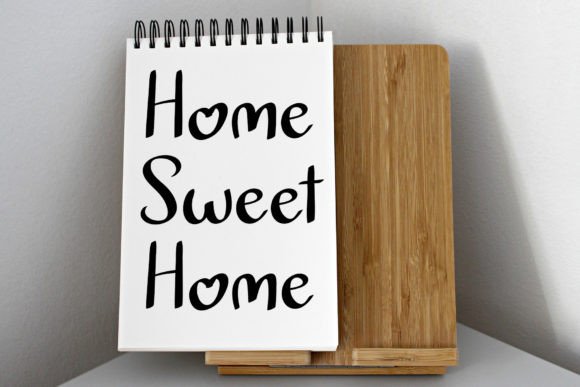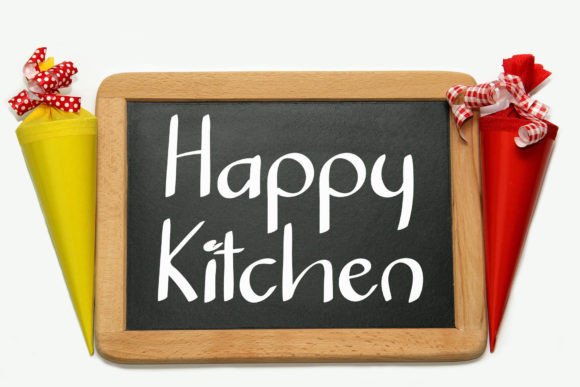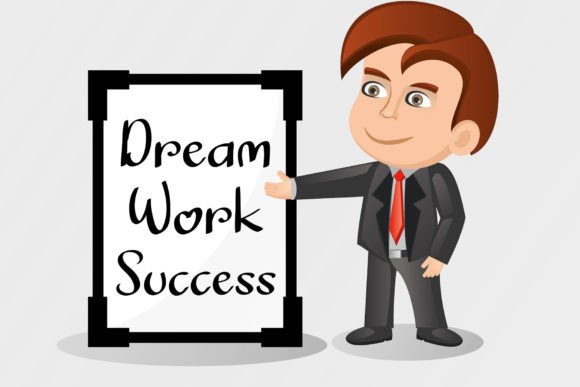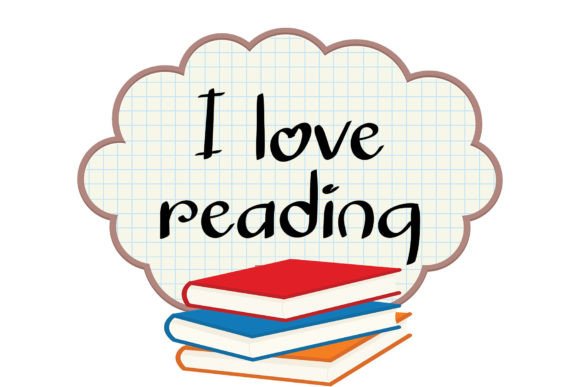
Block Font
Add Creative Elegance with Block Handwritten Font
The Block Handwritten Font is a stylish and distinctive script typeface designed to bring a sense of personality and refinement to your design work. With its beautifully balanced characters and artistic flair, Block offers the perfect mix of uniqueness and sophistication.
Whether you’re crafting digital designs or physical print materials, Block will help you create projects that are both memorable and visually appealing.
Ideal for Branding, Invitations, and Logos
Block is a versatile font that adapts easily to a wide range of design needs. It works especially well for logos, wedding invitations, greeting cards, social media posts, and product packaging. Its elegant and modern feel makes it a strong choice for boutique brands, fashion labels, and creative entrepreneurs looking to stand out.
With Block, you can infuse every project with a handcrafted touch that feels polished yet personal.
A Handwritten Style That’s Unique and Well-Balanced
What sets the Block Handwritten Font apart is its precise structure and visual harmony. The letterforms are thoughtfully designed with consistent spacing, flowing lines, and a subtle artistic vibe. This gives it a signature look that is distinct yet readable across various design settings.
Despite its handwritten roots, Block offers clean lines and a modern touch that makes it feel both current and timeless. It effortlessly balances style with clarity.
Designed for Digital and Print Flexibility
Block is highly adaptable and performs reliably across digital platforms and print media. Whether you’re creating Instagram content, email banners, business cards, or high-resolution product labels, this font maintains its quality and character.
To create a visually dynamic layout, try pairing Block with a minimalist sans-serif or classic serif font. This approach allows the handwritten style to shine while maintaining a balanced design structure.
Why Designers Choose Block Handwritten Font
Here’s why the Block font is a favorite among creatives:
• Unique and elegant handwritten script
• Well-balanced and beautifully crafted characters
• Ideal for logos, cards, branding, and packaging
• Legible and stylish at all sizes
• Great for both print and web use
Bring Sophistication and Personality to Your Work
In conclusion, the Block Handwritten Font is a refined yet artistic typeface that adds a unique edge to any project. Its natural flow and well-proportioned characters make it an excellent choice for designers who want to combine a personal touch with professional polish.
If you’re searching for a script font that stands out while staying versatile and elegant, Block is the perfect handwritten font to enhance your next creative project.